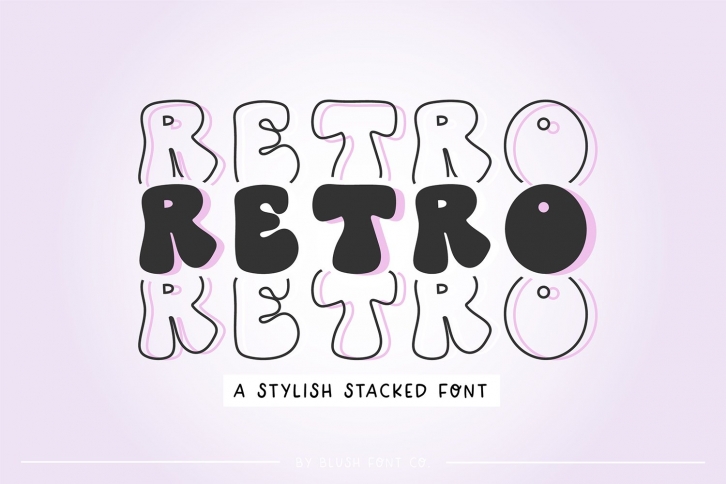
RETRO STACKED Trendy Display is a great font that was designed by Blush Font Co. Imagine the amount of combinations you can create using this font! The archive is 20.7 MB and it was released on February 13, 2022. RETRO STACKED Trendy Display looks beautiful on wedding invitations, greeting cards, logos, posters, labels, t-shirt designs, logos, business cards and is perfect for use in ink or watercolor works, fashion, magazines, packaging and food menus, children's books and more!